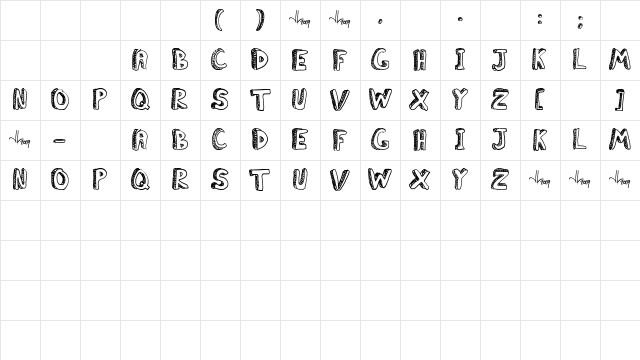
Classroom Boredom Regular
Design Context for Classroom Boredom
Classroom Boredom is a composed and adaptable typeface that performs quietly and consistently across a wide range of design contexts.